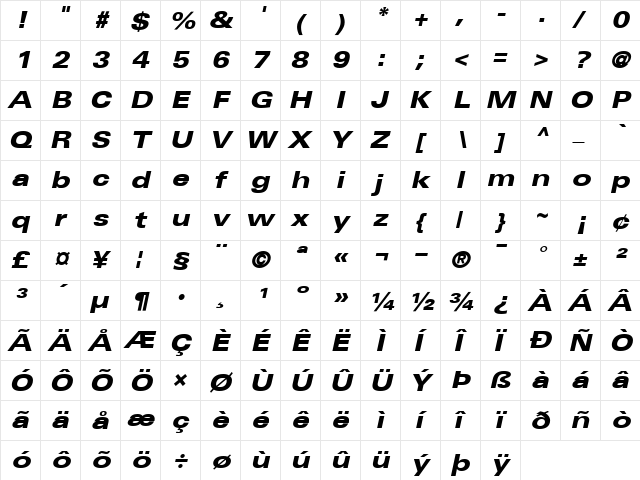
Univers73-ExtendedBlack BlackItalic Font Preview
Univers73-ExtendedBlack BlackItalic
Univers73-ExtendedBlack BlackItalic Font Details
Design Context for Univers73-ExtendedBlack Typeface
Univers73-ExtendedBlack is a composed and adaptable typeface that performs quietly and consistently across a wide range of design contexts. The slanted form adds forward momentum and visual energy.
Pro Tip: Try Univers73-ExtendedBlack for annotation and caption copy alongside an upright companion — the contrast in angle creates a dynamic but ordered typographic system.